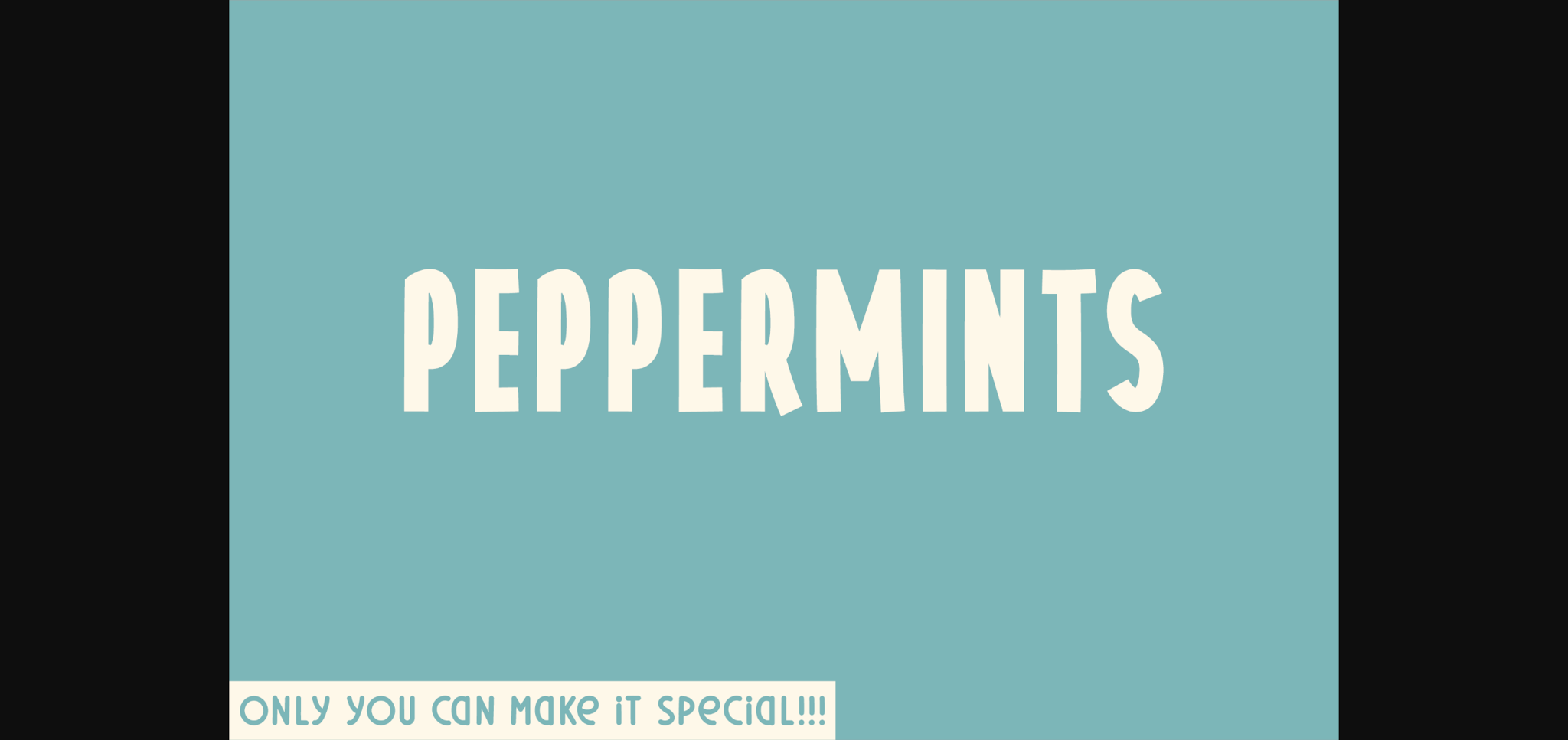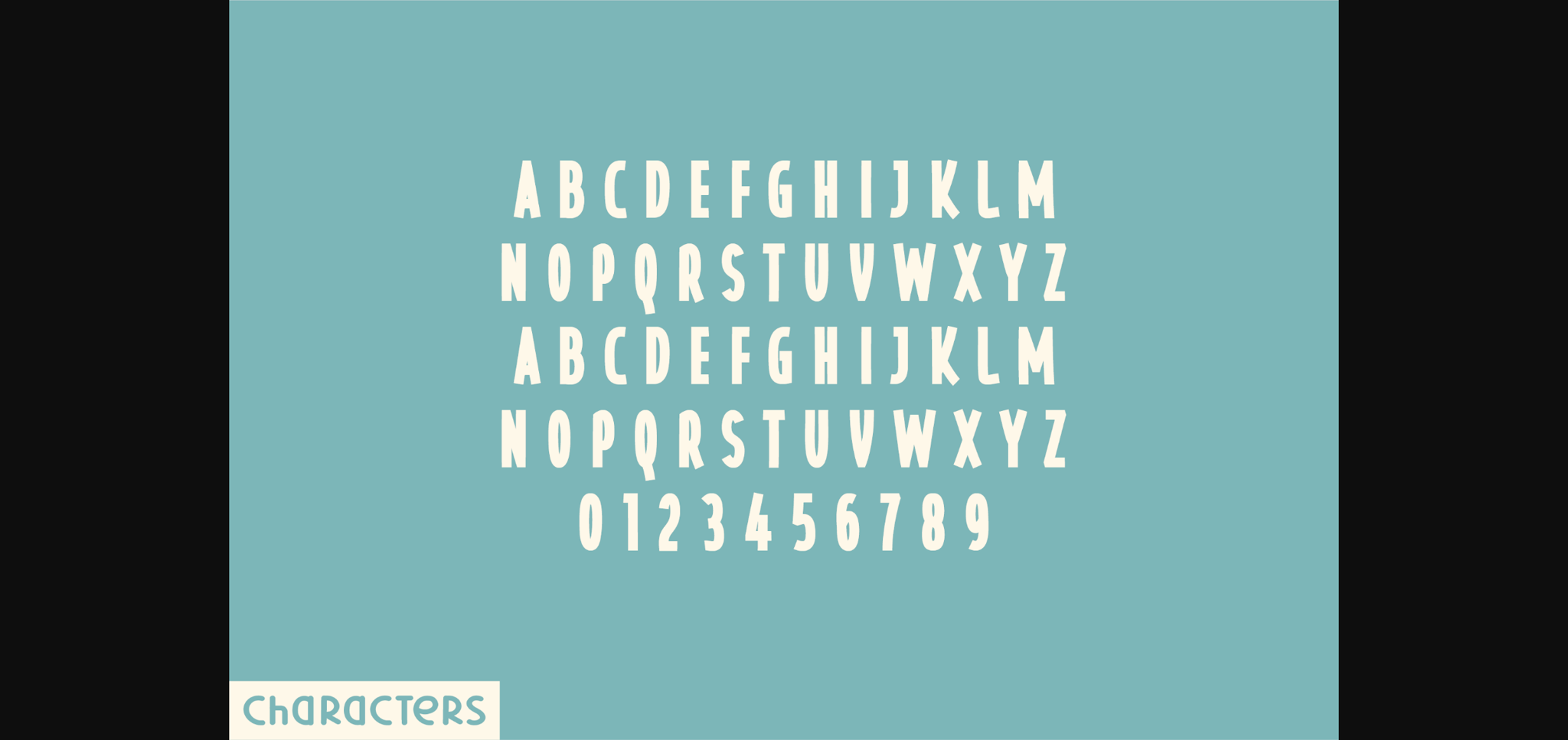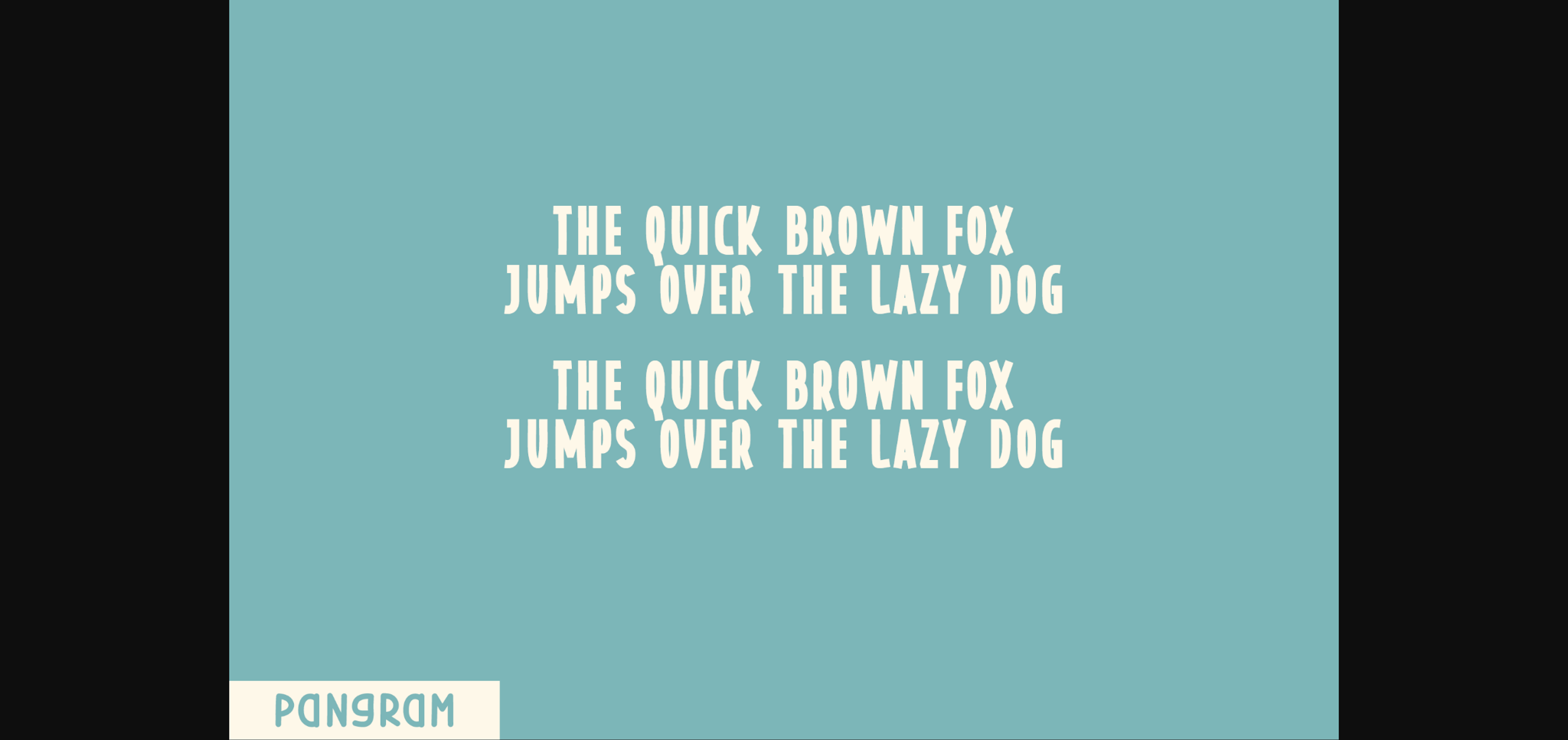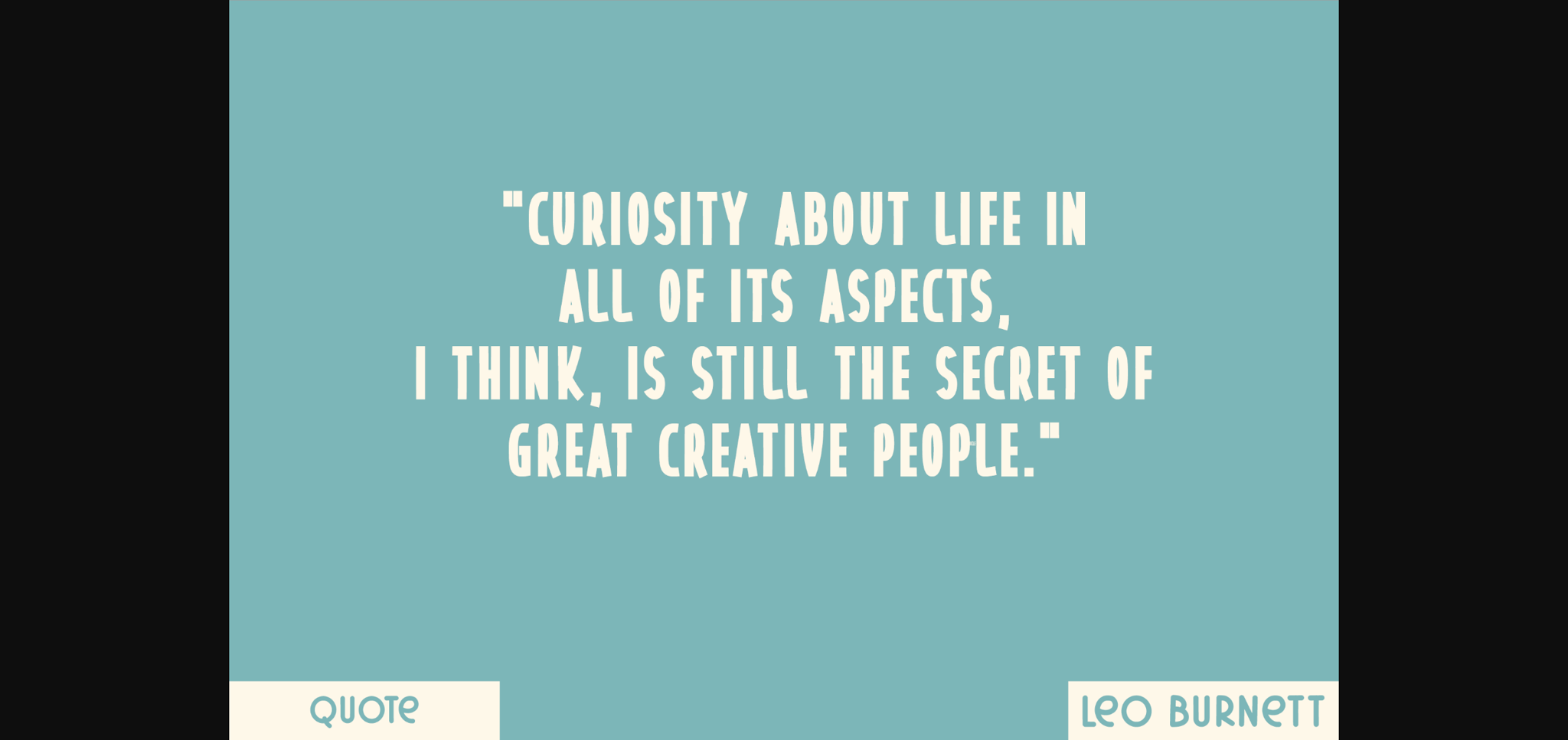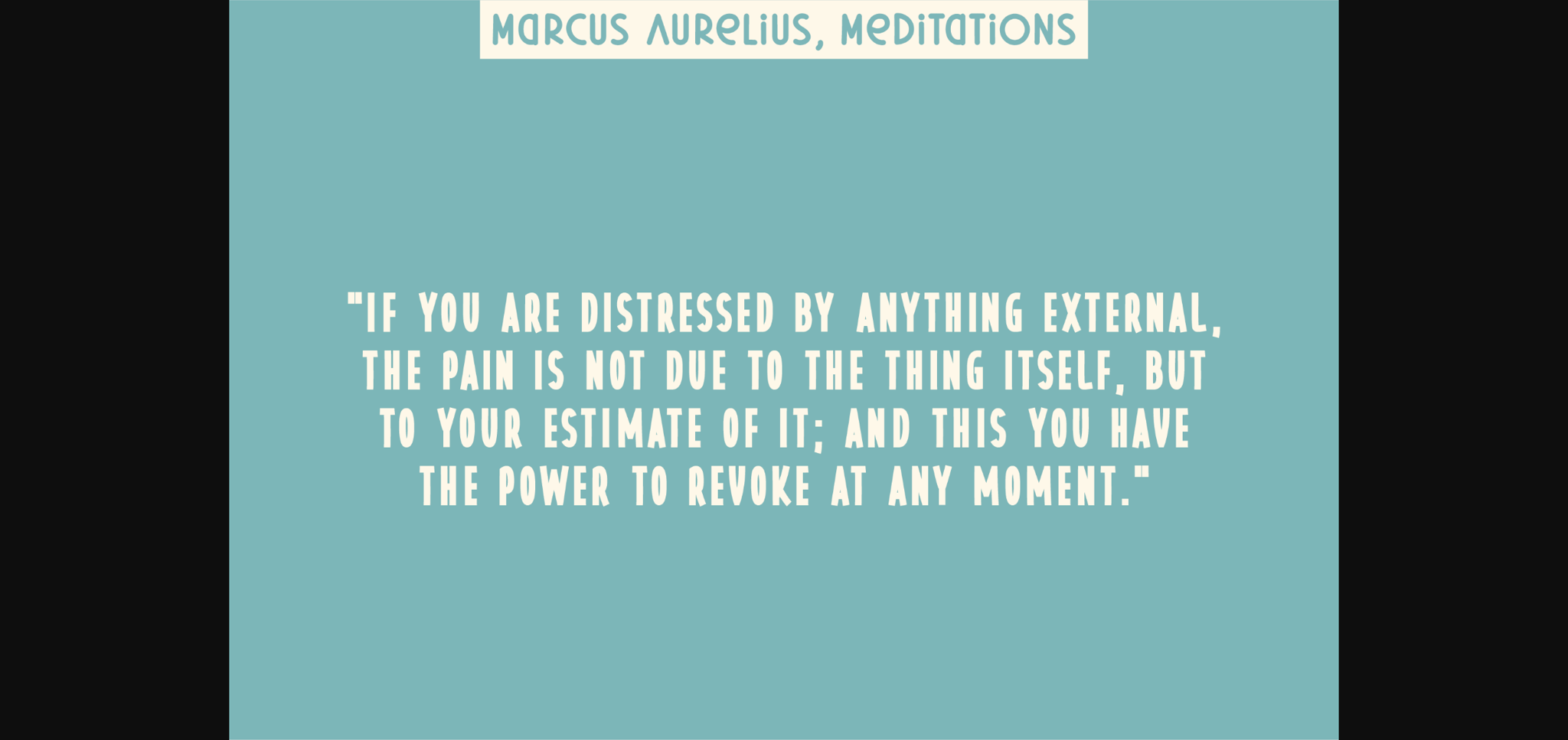
HomeSans Serif FontsPeppermints Font Sans Serif Fonts Peppermints Font FacebookXPinterestWhatsApp 1 of 7 ... Peppermints Font Poster 2... Peppermints Font Poster 3... Peppermints Font Poster 4... Peppermints Font Poster 5... Peppermints Font Poster 6... Peppermints Font Poster 7... About Peppermints Font Peppermints is a natural sans serif font created without changing a single node in each character’s indentation – this makes this font very interesting and unique. Perfect for quotes, notes, tees, and any product design. DOWNLOAD NOW People also explored Pumpkin Pastel Font Sunday Morning Font Mythaitea Font Spooky Font Black Colnes Font Australis Font Ballitina Font Angela The Green Font 357 0 TagsPeppermints Font Previous articlePretzel FontNext articleGranulated Font LEAVE A REPLY Cancel reply Comment: Please enter your comment! Name:* Please enter your name here Email:* You have entered an incorrect email address! Please enter your email address here Website: Save my name, email, and website in this browser for the next time I comment. Personal Use Free Rise of Kingdom Personal Use Free Read more about this font Shkoder 1989 Personal Use Free Read more about this font Strasua Personal Use Free Read more about this font Made of Concrete Personal Use Free Read more about this font BLOG Free Fonts Risk: Why Free Fonts Can Be Dangerous for Designers Free Fonts Risk: Why Free Fonts Can Be Dangerous for Designers Using free fonts is a common practice in web and graphic design. However, the... Exploring Font Trends 5 Fonts That Will Dominate Design Trends in 2026 Top 10 Handwritten Fonts That Elevate Your Designs